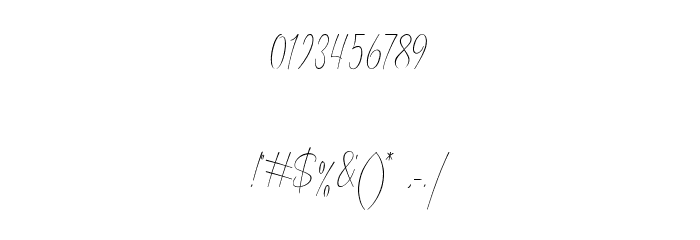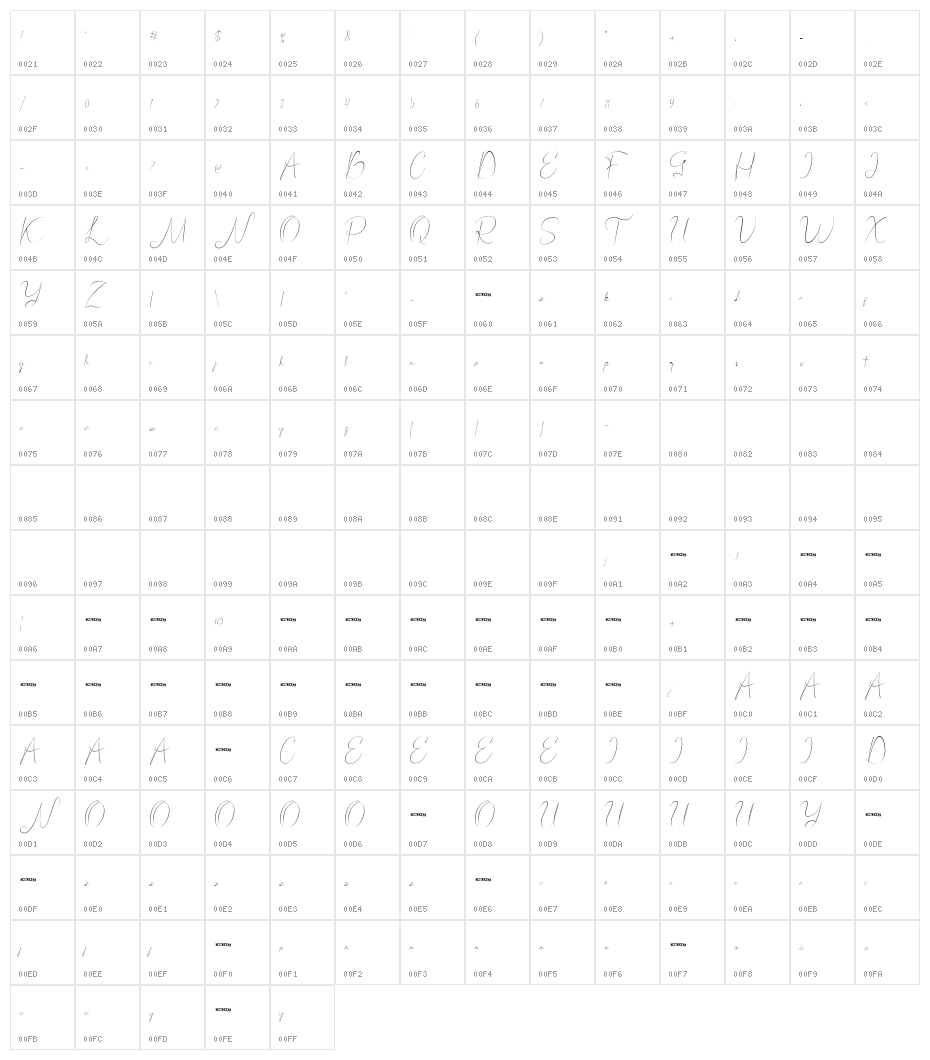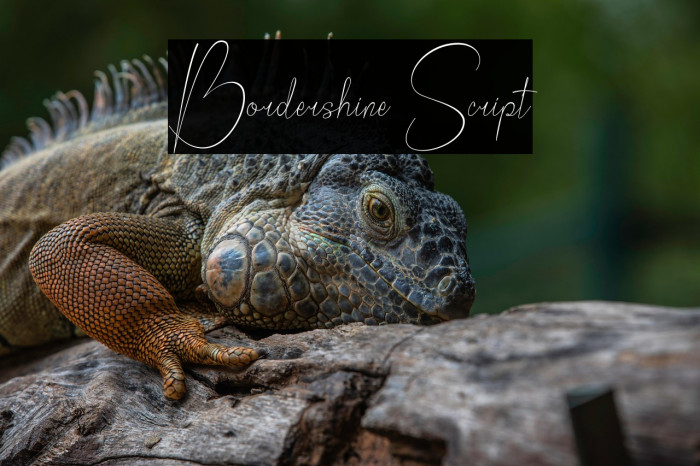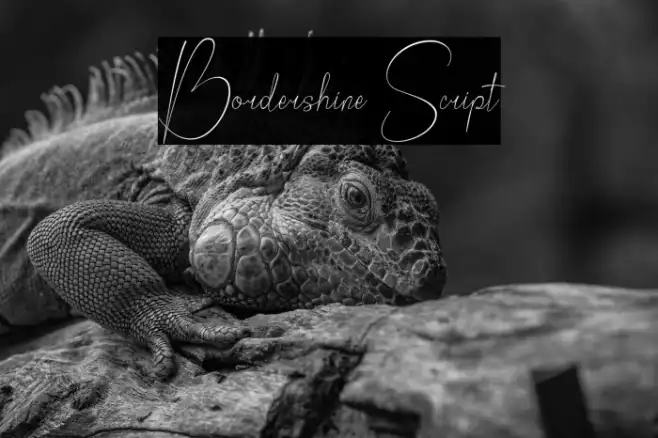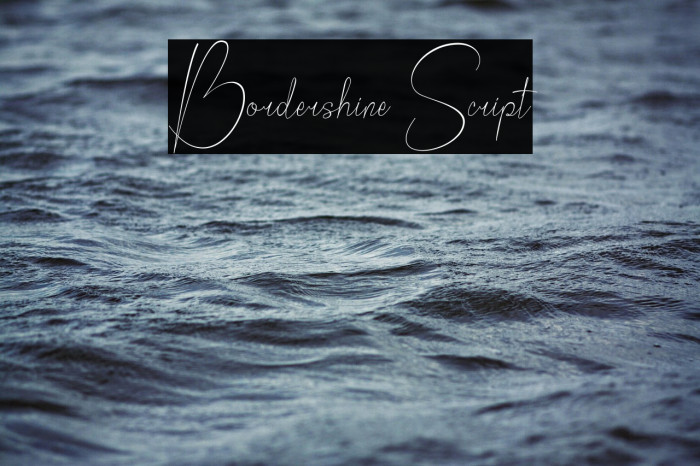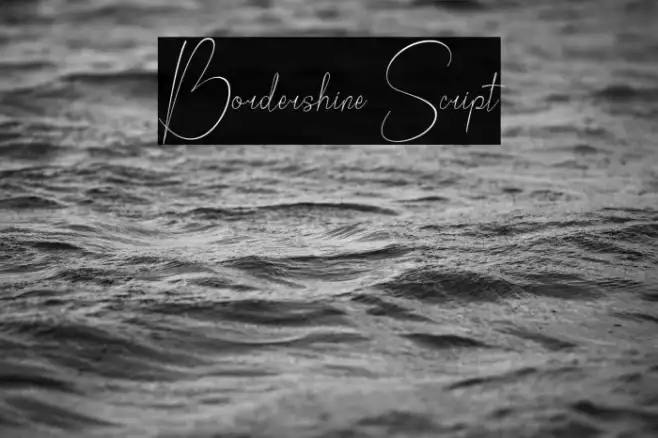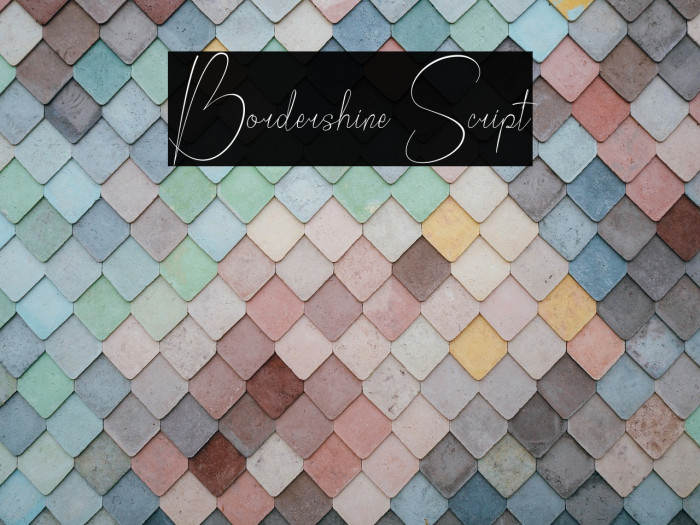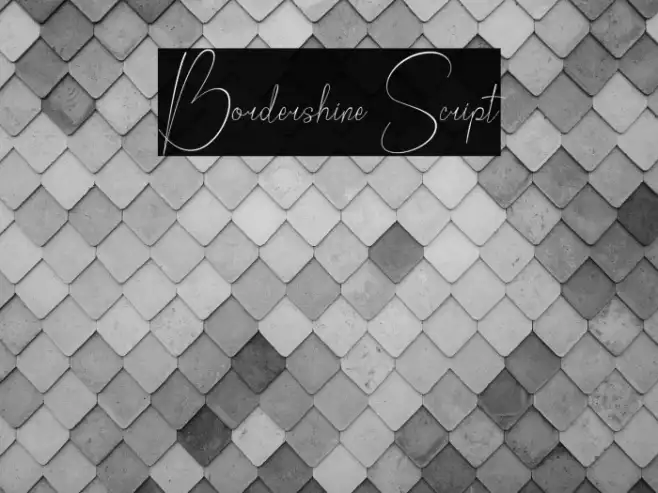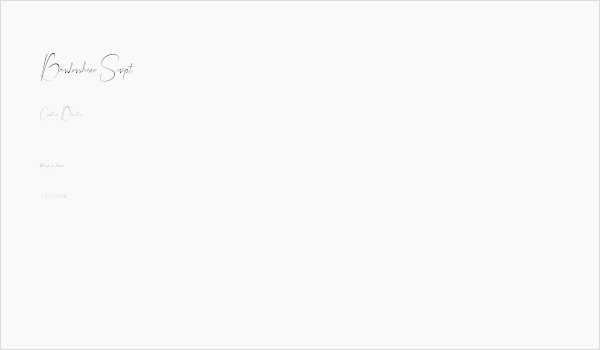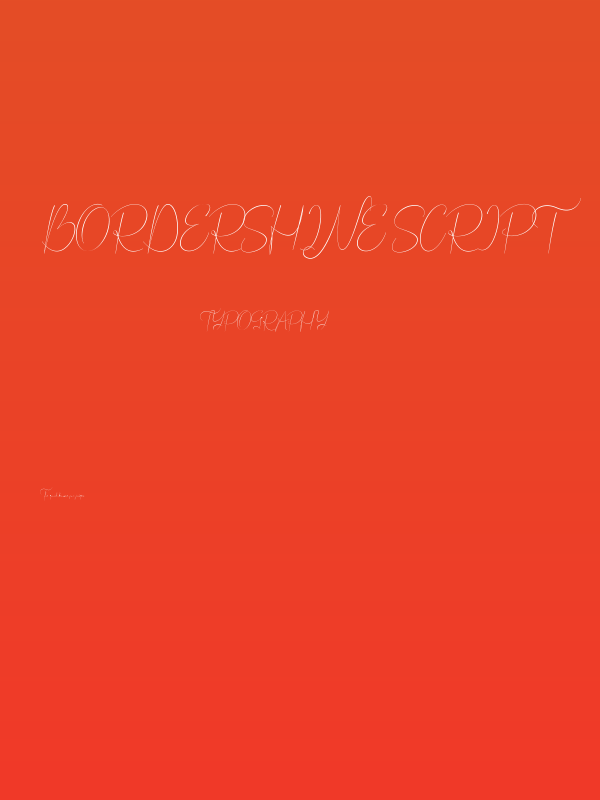
Bordershine Script Font
Bordershine Script Description
This elegant script font features a delicate and flowing design, characterized by its thin, graceful strokes and fluid connections between letters. The uppercase letters are particularly ornate, with sweeping curves and loops that add a touch of sophistication. The lowercase letters maintain a consistent style, offering a harmonious blend of readability and artistic flair. The numerals and special characters are crafted with the same attention to detail, ensuring a cohesive look across all elements. This font exudes a sense of elegance and refinement, making it ideal for projects that require a touch of class.
Overall StyleElegant
Use CaseLogos, Invitations, Branding
Proposed ProjectsIdeal for wedding invitations, elegant branding, high-end product packaging, and personal stationery.